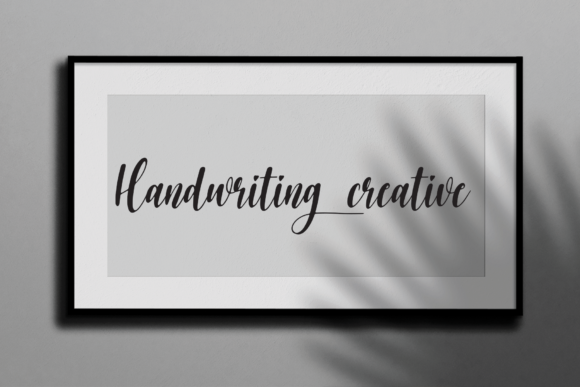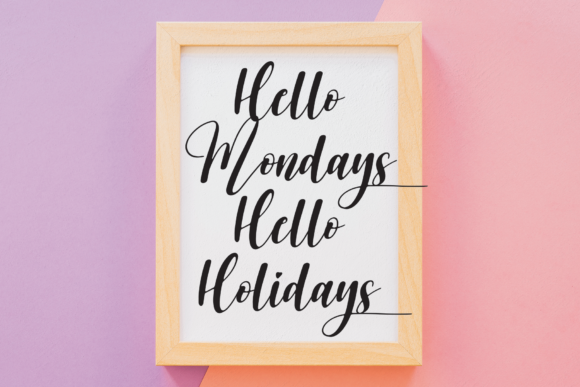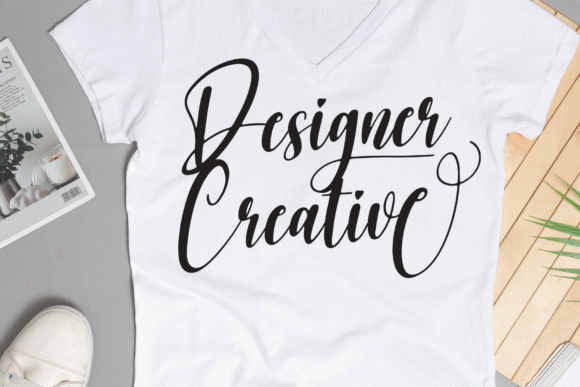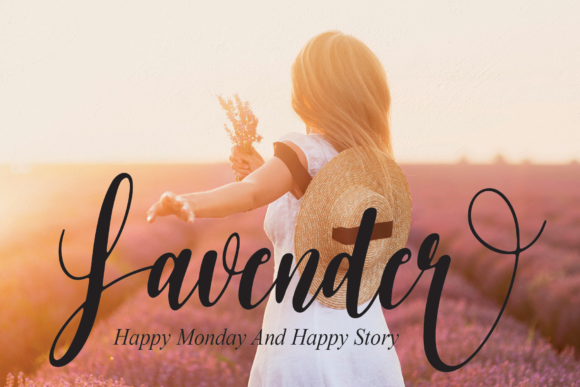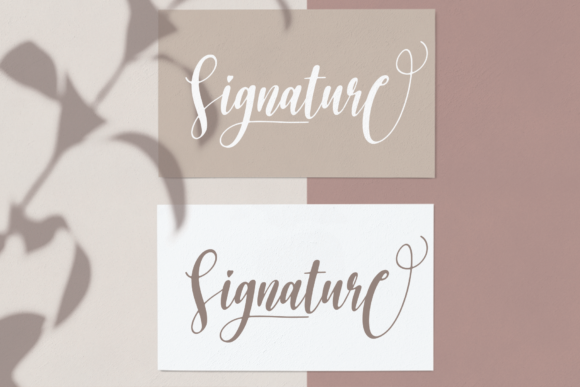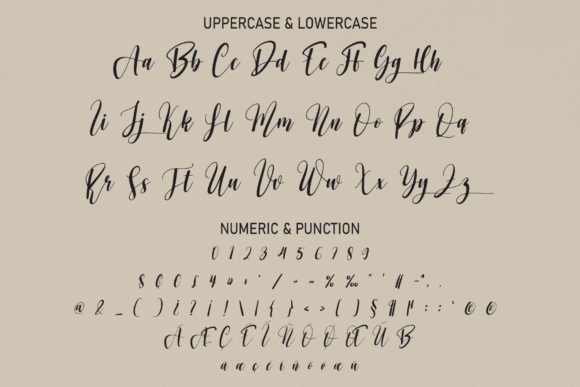
Introducing Autogradien Font: A Timeless Handwritten Masterpiece
Are you a designer or crafter looking for a font that can elevate your creative projects to the next level? Look no further than Autogradien Font, a lovely and timeless handwritten font that is sure to capture the attention of your audience. With its unique and beautiful touch, Autogradien is the perfect choice for creating eye-catching logos, branding, and quotes that will make your design come alive!
The Charm of Autogradien Font
Autogradien Font is a carefully crafted handwritten font that exudes a sense of elegance and sophistication. Every letter has a distinct and beautiful touch, which sets it apart from other fonts. The font’s unique character is perfect for designers and crafters who want to add a personal touch to their projects. Whether you’re creating a logo, branding materials, or quotes, Autogradien Font is sure to make your design stand out.
Autogradien Font is an excellent choice for a wide range of creative projects, including:
- Logos: Create a lasting impression with a custom logo that showcases your brand’s personality.
- Branding: Develop a consistent brand identity with Autogradien Font, perfect for business cards, letterheads, and more.
- Quotes: Add a touch of elegance to your inspirational quotes and sayings.
- Stationery: Elevate your stationery designs with a font that’s both beautiful and timeless.
What Makes Autogradien Font Special?
So, what sets Autogradien Font apart from other fonts? Here are just a few reasons why designers and crafters love this font:
- Unique Character: Every letter has a distinct and beautiful touch that adds a personal touch to your designs.
- Timeless Appeal: Autogradien Font has a classic, timeless quality that ensures your designs will remain stylish for years to come.
- Elegant and Sophisticated: This font exudes elegance and sophistication, making it perfect for high-end designs.
Tips for Using Autogradien Font
To get the most out of Autogradien Font, here are a few tips to keep in mind:
- Use it sparingly: Autogradien Font is a statement font, so use it sparingly to make a lasting impression.
- Experiment with colors: Try pairing Autogradien Font with different colors to create a unique and eye-catching design.
- Mix and match: Combine Autogradien Font with other fonts to create a visually interesting design.